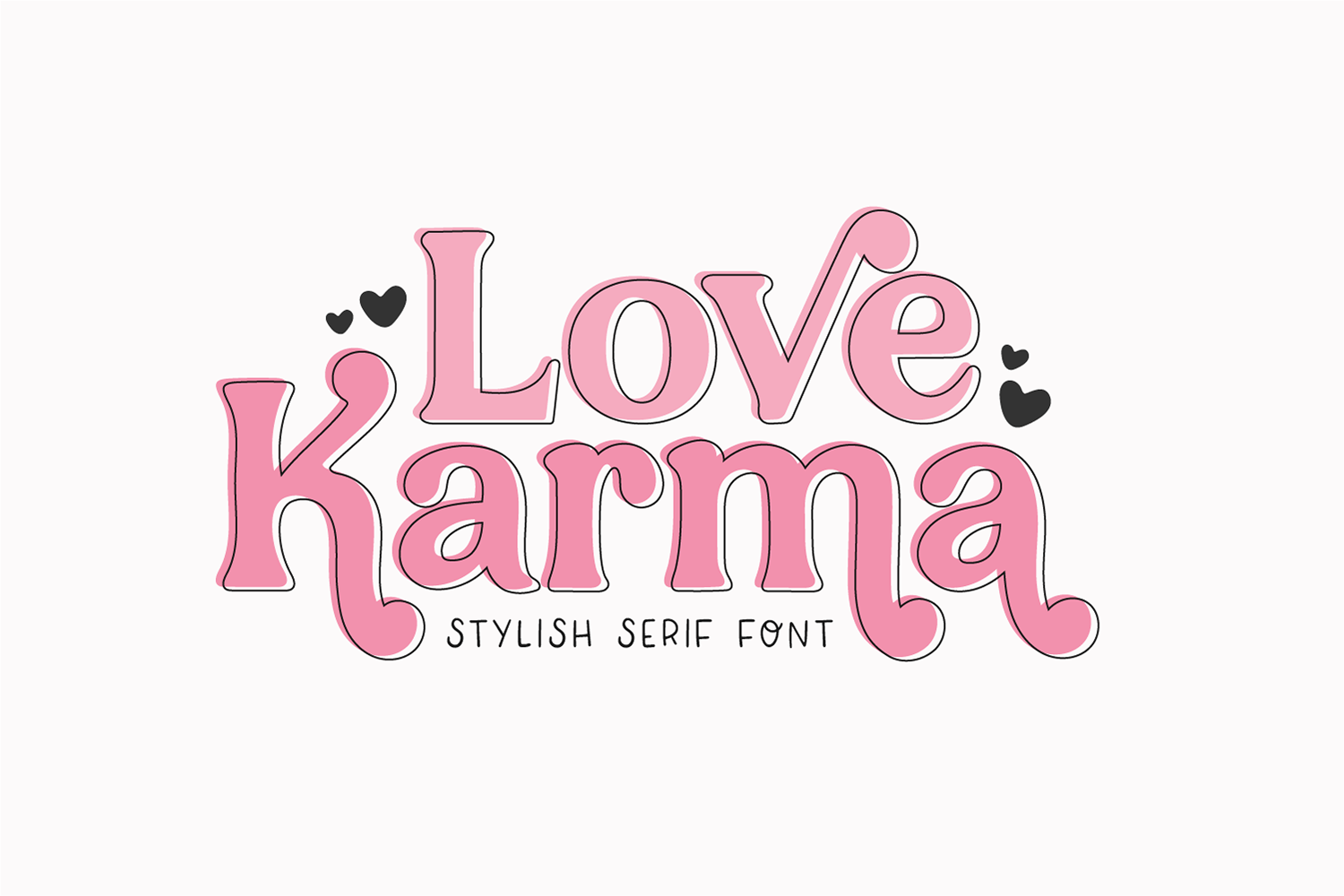
LOVE KARMA Stylish Serif Font
"Love Karma" a modern stylish display font. Includes 193 characters.
Multilingual support.
This font is a bold display font that is perfect for social media or crafty projects. Use if for branding, crafts for decor, invitations, and more! All caps glyphs, numbers, and punctuation marks.